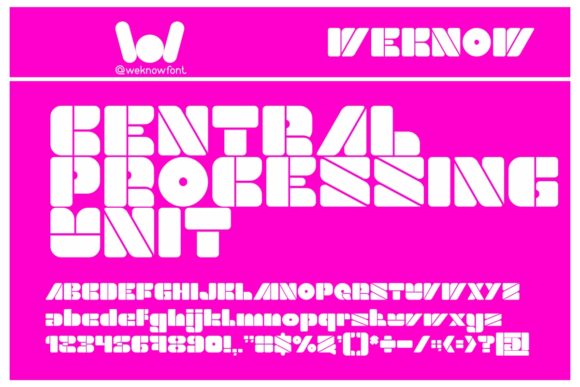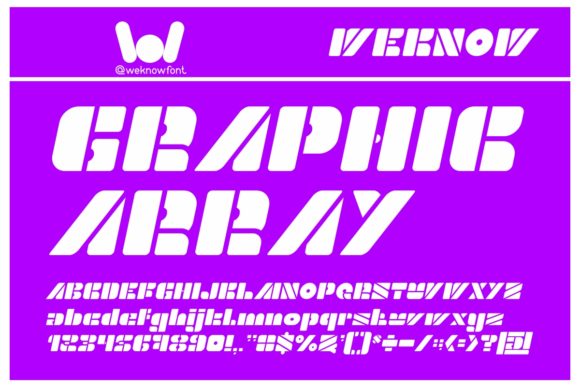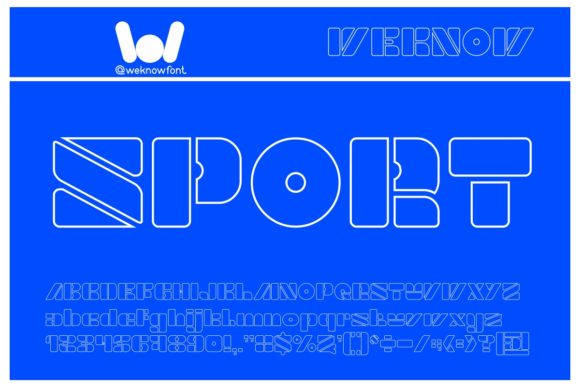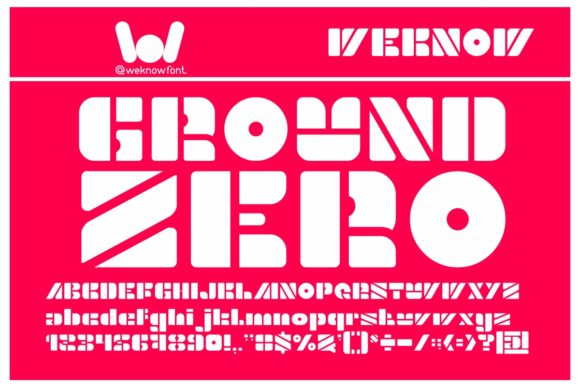
Introduction to Science Channel Font
Science Channel is a cool and techno display font.
It is both trendy and authentic Add this chunky lettered font to your designs and notice how it makes them come alive.
Key Features of Science Channel Font